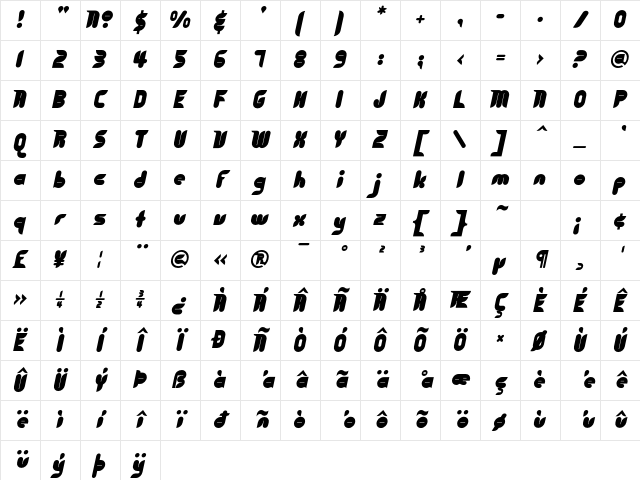
Cyberotica ExtraBold
Cyberotica Family
Cyberotica ExtraBold
Design Context for Cyberotica
Cyberotica has a distinctly futuristic character, with geometric precision and clean angles that feel at home in technology, gaming, and sci-fi contexts. Its bold stroke weight gives it real presence on the page.